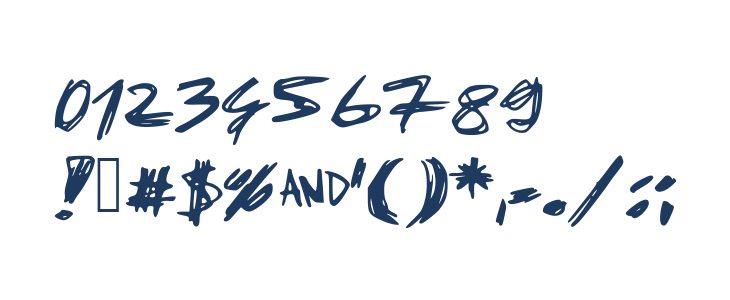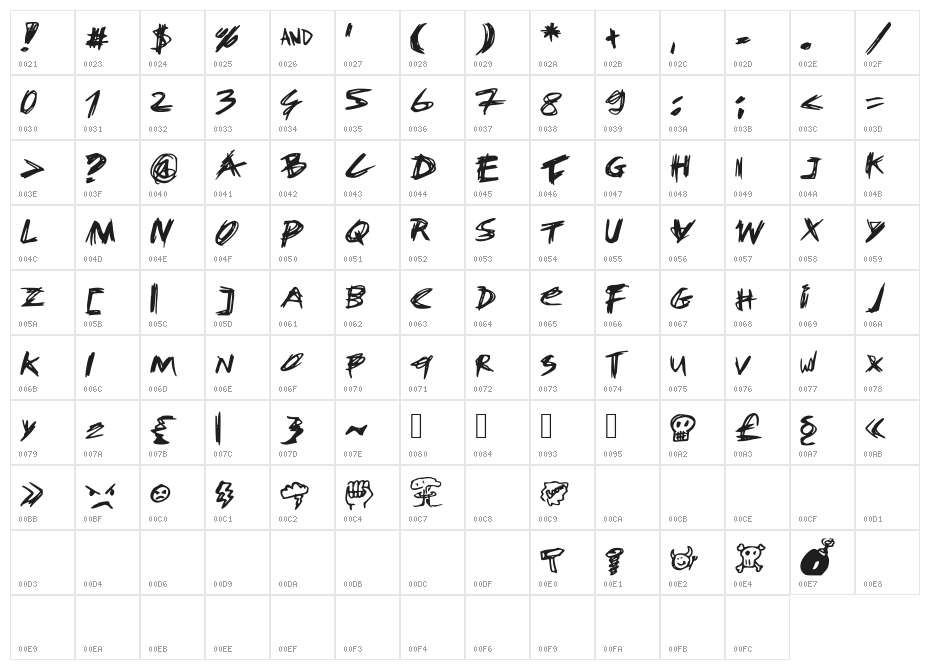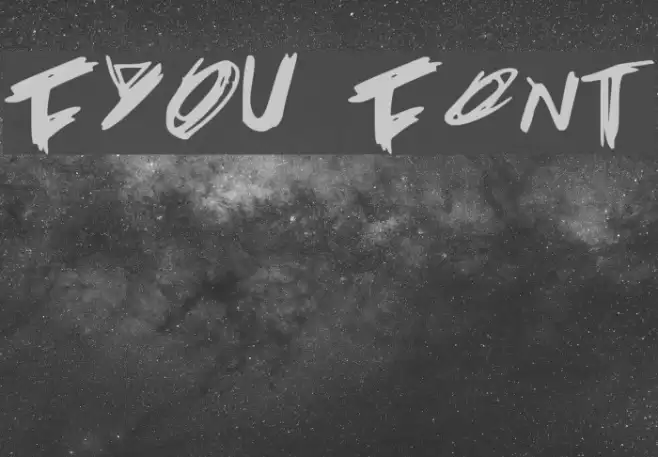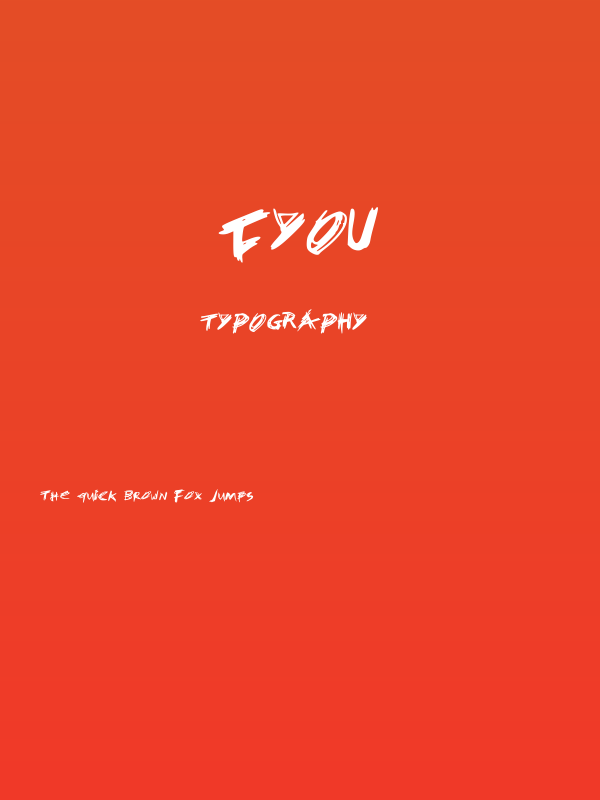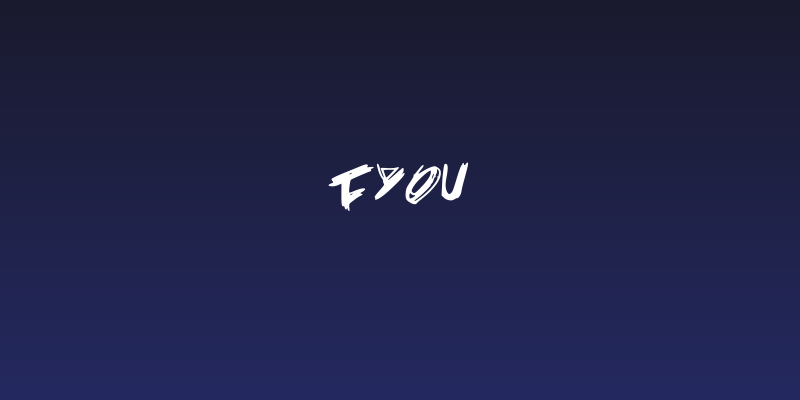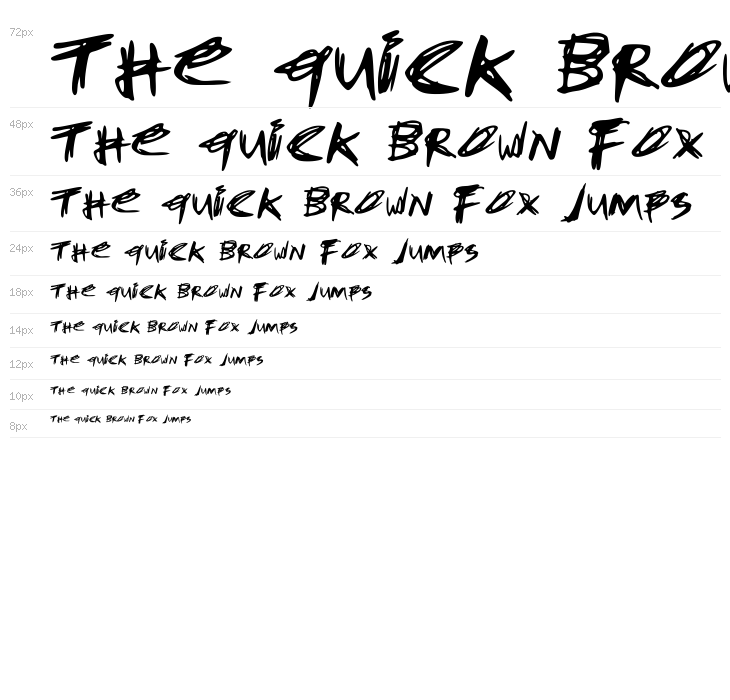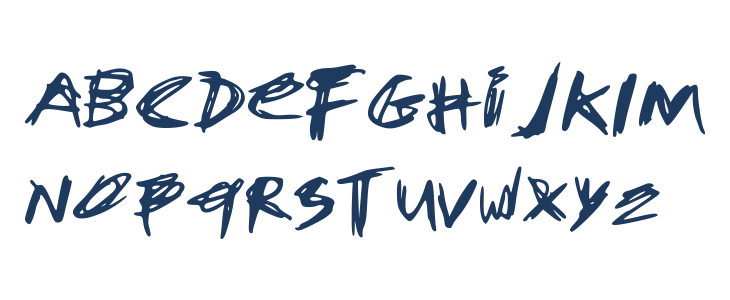
FYOU Font
FYOU Description
This font features a bold, energetic style with a hand-drawn appearance, characterized by its rough, brush-like strokes. The letters are dynamic and irregular, giving a sense of movement and spontaneity. The uppercase and lowercase letters maintain a consistent style, with exaggerated curves and sharp angles. Numbers and special characters follow the same expressive design, making the font suitable for attention-grabbing headlines and creative projects. Its unique style is both edgy and artistic, perfect for projects that require a strong visual impact.
FYOU UPPERCASE
FYOU LOWERCASE
FYOU OTHER CHARS
| Proposed Projects | Ideal for posters, album covers, graffiti art, and branding that requires a bold, artistic touch. |